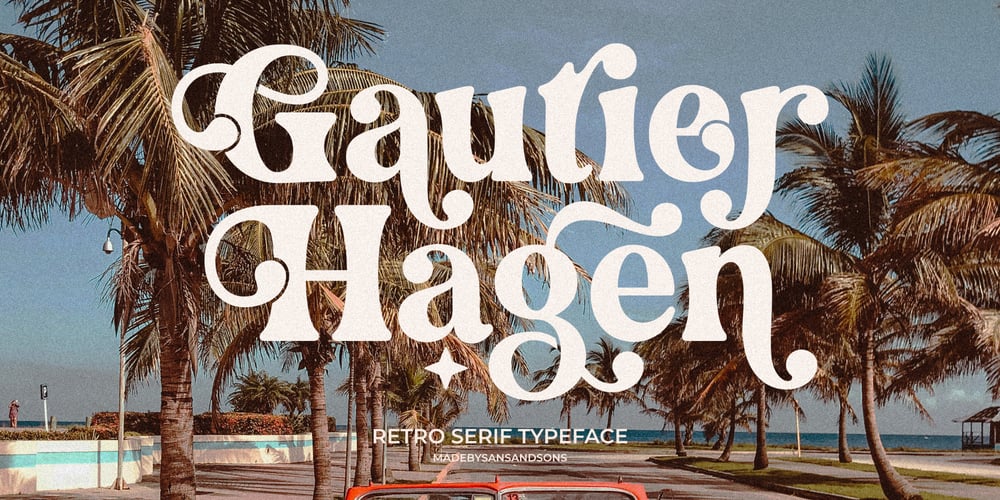
Gautier Hagen Font Family was designed by Angga Suwista and published by Sans And Sons. Gautier Hagen contains 3 styles and family package options. Gautier Hagen – Groovy Retro Font by Sans and SonsMeet “Gautier Hagen” — a bold serif font merging groovy, classic with contemporary unique style.Gautier Hagen Features :- Multilingual Support- Alternates- PUA Encoded- Ligatures